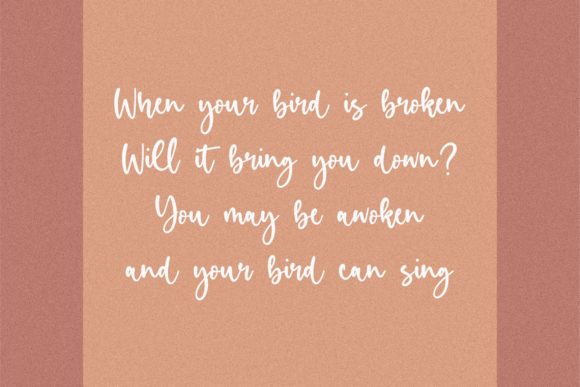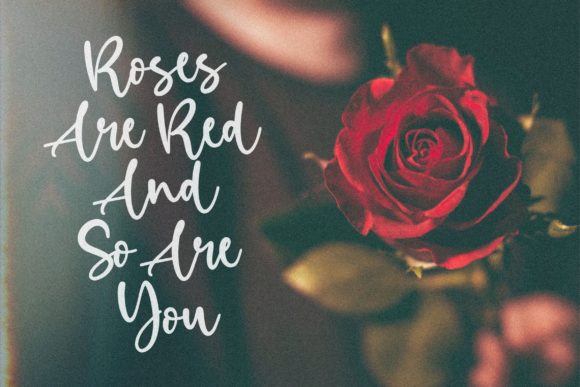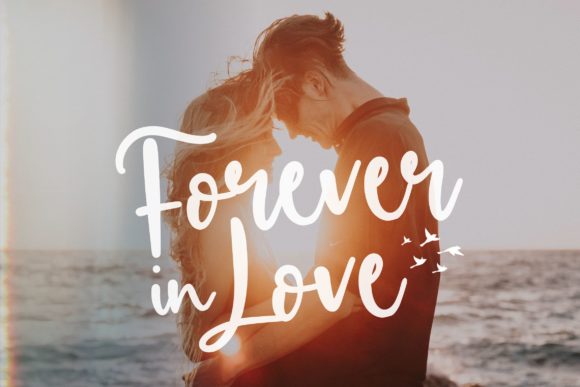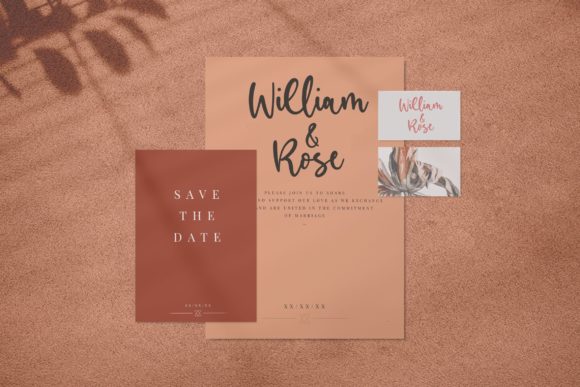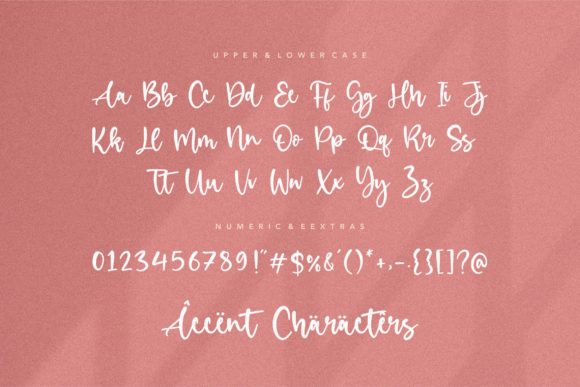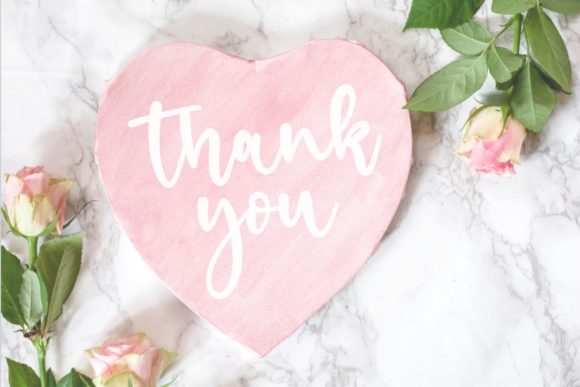
Birdlove Font: The Perfect Choice for Dreamy and Personalized Designs
Are you a designer or crafter looking for a font that can add a touch of elegance and whimsy to your designs? Look no further than Birdlove Font. This beautiful, handwritten font is perfect for creating dreamy and personalized designs that will capture the hearts of your audience. In this article, we’ll take a closer look at Birdlove Font, its features, and how you can use it to elevate your designs.
What is Birdlove Font?
Birdlove Font is a flowing and elegant handwritten font that is designed to add a touch of sweetness and loveliness to your designs. With its smooth and cursive lines, this font is perfect for creating designs that require a personal and dreamy touch. Whether you’re working on a branding project, a wedding invitation, or a craft project, Birdlove Font is an excellent choice.
Key Features of Birdlove Font
Birdlove Font comes with several key features that make it an excellent choice for designers and crafters. Some of its notable features include:
- Elegant and flowing design: Birdlove Font has a beautiful, cursive design that flows smoothly, making it perfect for creating elegant and sophisticated designs.
- Handwritten style: The font has a handwritten style that gives it a personal and unique touch, making it perfect for designs that require a human touch.
- Sweet and lovely: Birdlove Font is designed to be sweet and lovely, making it perfect for designs that require a touch of whimsy and romance.
- High-quality design: The font is designed with high-quality lines and curves, making it perfect for use in both digital and print designs.
How to Use Birdlove Font in Your Designs
Birdlove Font is an incredibly versatile font that can be used in a wide range of designs. Here are some ideas on how you can use Birdlove Font in your designs:
- Branding projects: Use Birdlove Font to create elegant and sophisticated branding projects, such as logos, business cards, and letterheads.
- Wedding invitations: Birdlove Font is perfect for creating beautiful and romantic wedding invitations, save-the-date cards, and thank-you cards.
- Craft projects: Use Birdlove Font to add a personal touch to your craft projects, such as handmade cards, scrapbooking, and DIY projects.
- Digital designs: Birdlove Font can be used in digital designs, such as social media graphics, blog headers, and website designs.
Tips for Getting the Most Out of Birdlove Font
Here are some tips for getting the most out of Birdlove Font:
- Experiment with different colors: Birdlove Font looks great in a variety of colors, so don’t be afraid to experiment with different colors to find the one that works best for your design.
- Use it with other fonts: Birdlove Font can be paired with other fonts to create a unique and interesting design.
- Pay attention to spacing: Make sure to pay attention to the spacing between letters and words to ensure that your design looks elegant and sophisticated.
Birdlove Font is a beautiful and elegant handwritten font that is perfect for designers and crafters looking to add a touch of whimsy and romance to their designs. With its smooth and cursive lines, sweet and lovely design, and high-quality lines and curves, Birdlove Font is an excellent choice for a wide range of designs. Whether you’re working on a branding project, a wedding invitation, or a craft project, Birdlove Font is sure to impress.